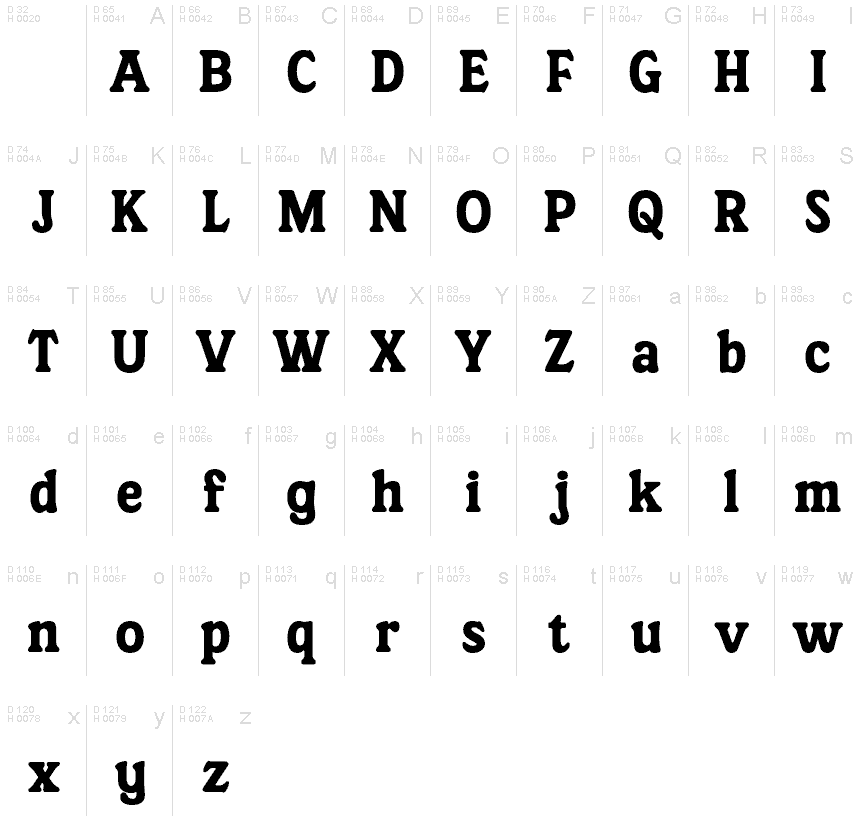
CS Limau Regular Demo
CS Limau font by Craft Supply Co. is a bold serif font whose each letter feels robust and has an authoritative presence thanks to its substantial weight. These traditional features give the typeface its classic feel that many designers are after.